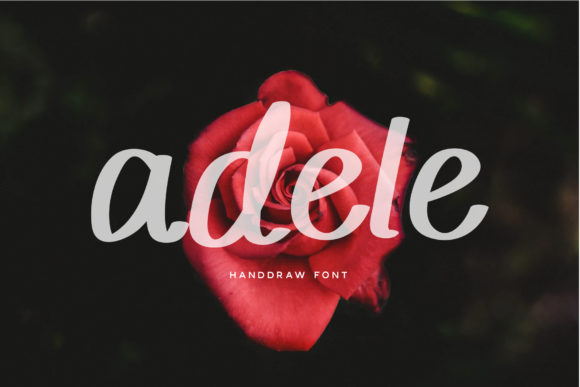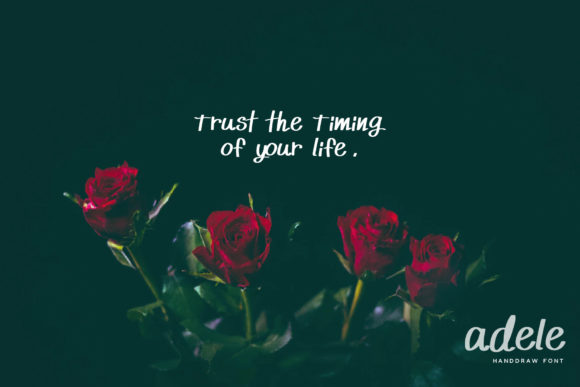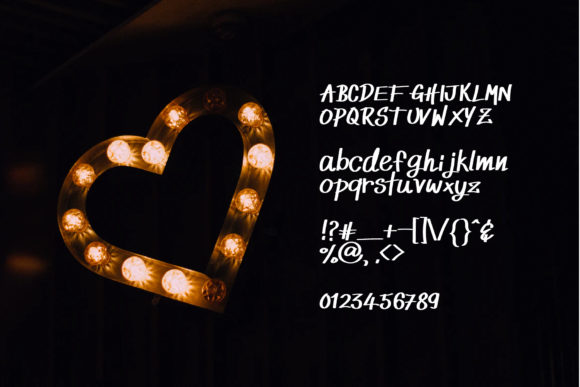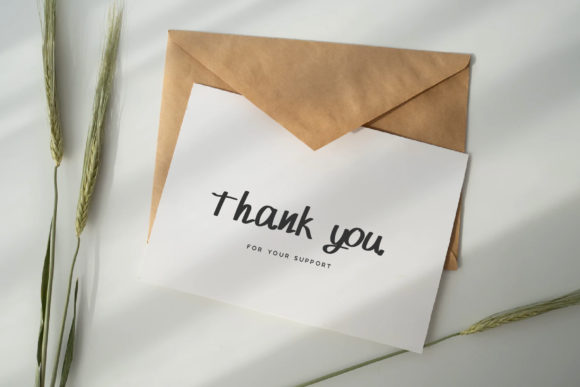
HomeScript FontsAdele Font Script Fonts Adele Font FacebookXPinterestWhatsApp Adele Font Poster 2 Adele Font Poster 3 Adele Font Poster 4 About Adele Font Adele feels simple and casual, yet fancy. This romantic script will elevate any craft to the highest level! DOWNLOAD ON CREATIVE FABRICAThis font is sold and delivered by Creative Fabrica. Font Canyon may earn a commission if you buy through this link. People also explored Horelios Thin Font Natural Font Anastasia Signature Font Calm Down Beibeh Font Kremlin Font Staylisha Govis Ranic Font Architect Font Kick the Can Serif Font 290 0 TagsAdele Font Previous articleStacylia FontNext articleMeadows Font LEAVE A REPLY Cancel reply Comment: Please enter your comment! Name:* Please enter your name here Email:* You have entered an incorrect email address! Please enter your email address here Website: Save my name, email, and website in this browser for the next time I comment. Personal Use Free Remember Personal Use Free Read more about this font Adeline Personal Use Free Read more about this font Krase Personal Use Free Read more about this font City Tour Personal Use Free Read more about this font BLOG Exploring Font Trends Shaping Communication in the Digital Era Fonts, like all design elements, are subject to trends. They play a crucial role in communicating a brand's personality,... Free vs Paid Fonts: Why Investing in Premium Fonts Is Worth It Elegant Wedding Invitation Fonts – Handwritten & Script Fonts Modern Sans-Serif Fonts That Brands Love in 2025